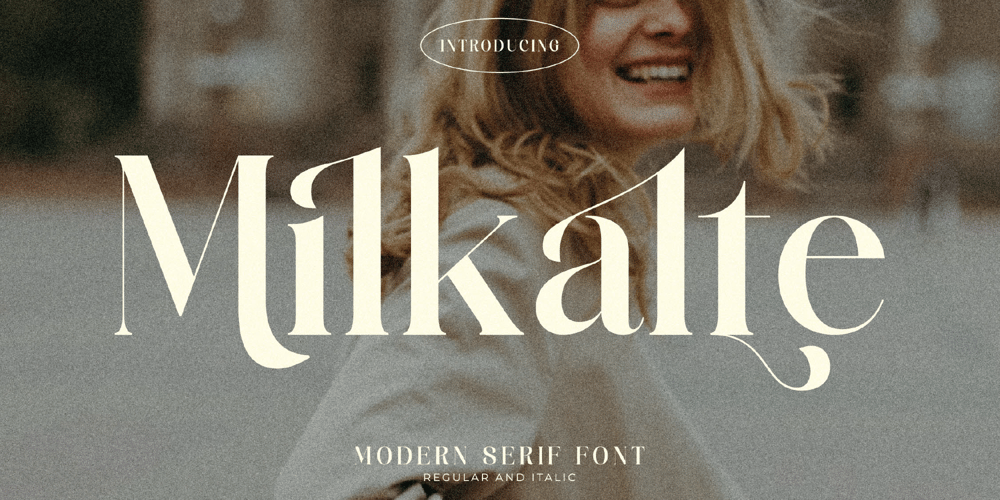
Milkalte Font Family was designed by Heru Utama Putra and published by Letterena Studios. Milkalte contains 2 styles and family package options. Milkalte is a modern and classic serif font with a unique style and fancy look. This typeface is perfect for an elegant & luxury logo, book or movie title design, fashion brand, magazine, clothes, lettering, quotes, and so much more.